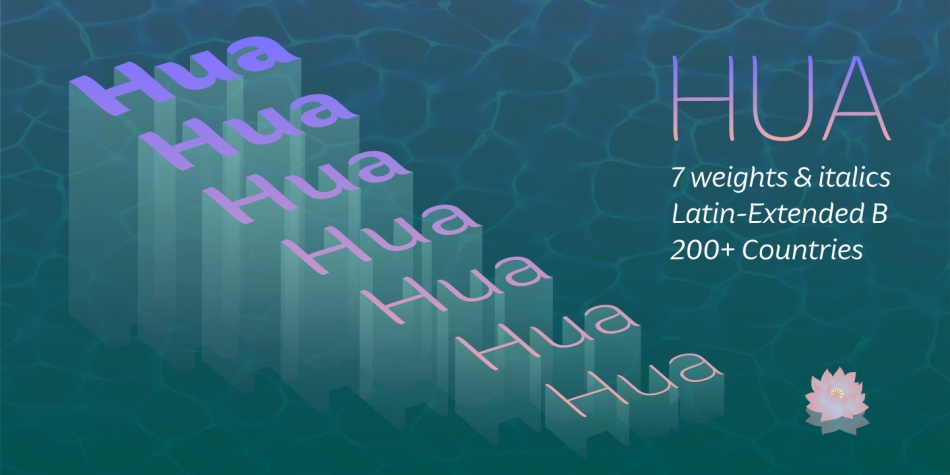
Hua Font
Hua Font is perfect for modern branding, minimalist packaging, digital interfaces, social media graphics, and contemporary poster designs. Its clean, sleek lines make it highly versatile for both print and digital applications.
What makes Hua Font exciting is its refined simplicity and geometric precision. The font’s balance between sharpness and smooth curves creates a professional yet approachable aesthetic, making it ideal for projects that demand clarity and style.
The Hua Font family includes Regular, Bold, Italic, and Light weights, giving designers flexibility to craft everything from striking headlines to elegant body text. Its versatility ensures cohesion across a wide range of creative projects.